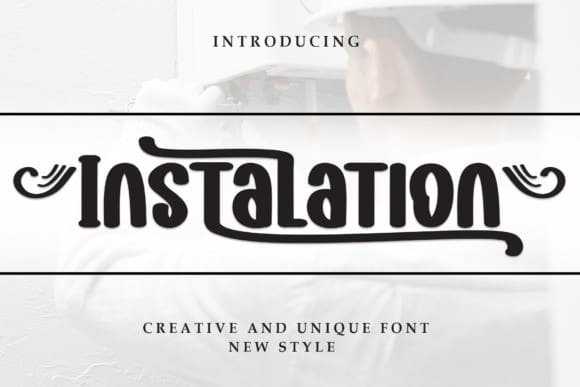
Instalation Display Font
Instalation Display Font is a sweet and friendly handwritten font. Fresh and casual, this font is ideal for writing wedding invitations, cards, or any other design that might need a lovely touch.